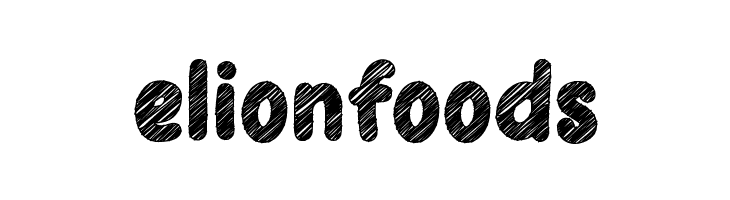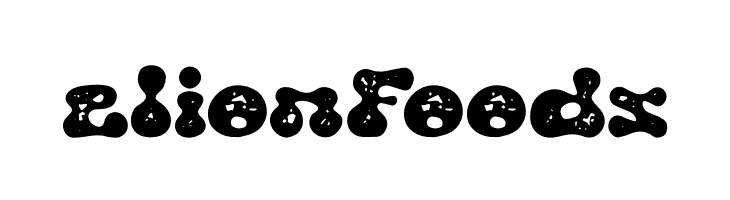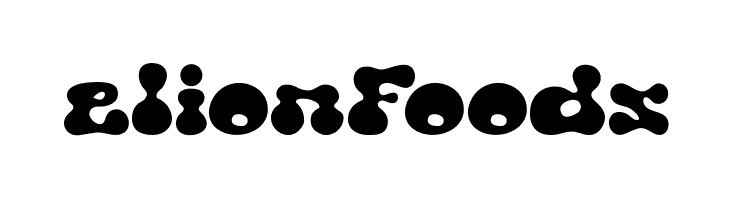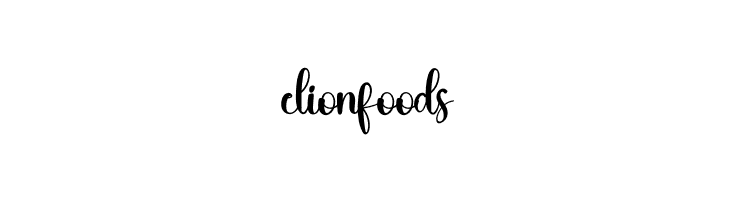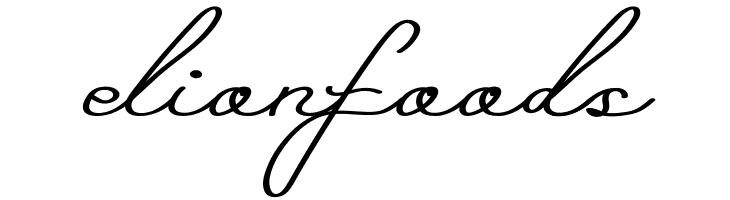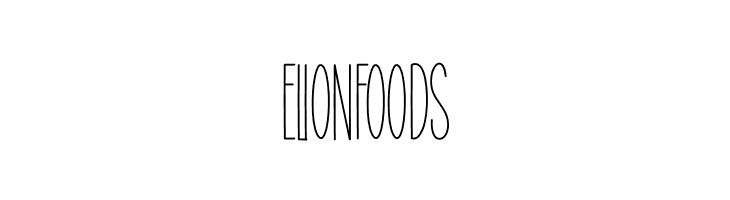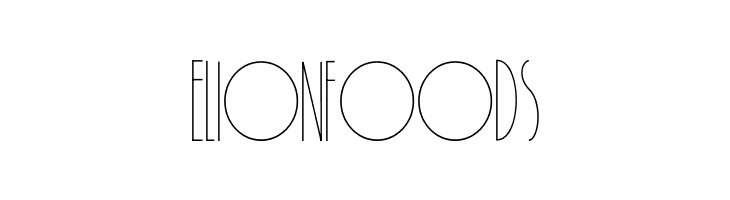
A playful, hand-drawn font with bold, rounded characters and diagonal hatching.
A tall, narrow, and modern font with consistent stroke width and close character spacing.
A graceful, flowing script font with elegant, interconnected letters.
A whimsical, elegant cursive font with intricate loops and flourishes.
A bold, Art Deco-inspired font with geometric shapes and sharp angles.
A bold, Art Deco-inspired font with high contrast and geometric elegance.
A playful, bold font with rounded, blob-like characters.
A textured, playful font with a bubbly, organic design.
A bold, tall, and narrow font with high contrast, perfect for impactful headlines.
A modern, elegant font with tall, thin letterforms and high contrast strokes.